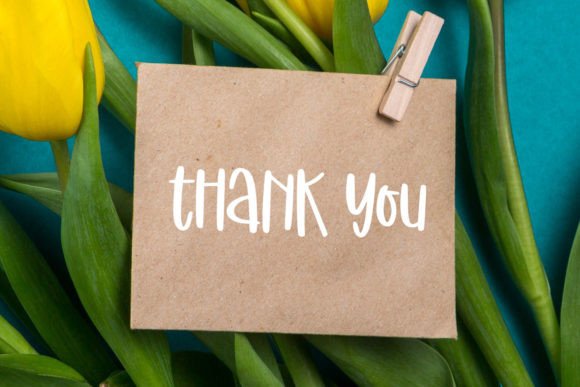
Introduction to Daily Designer Font Font
Fonts play a crucial role in design, and the Daily Designer Font font is a typeface that brings both character and versatility to any project. Whether you’re working on a branding project, a website, or a print design, the Daily Designer Font font offers a unique style that can elevate your work.
| 📌 Font Name | Daily Designer Font |
| 👤 Author | Abodaniel |
DAILY DESIGNER – cute and crafty font- DAILY DESIGNER is playful font.
It is great for branding, quotes, logos, t-shirt designs, tote bag designs, cards, banners, social media, and more .
Key Features of Daily Designer Font Font
Why Choose Daily Designer Font Font?
The Daily Designer Font font is more than just a typeface – it’s a design tool that helps you communicate your message with style and clarity. Its unique character set and versatile design make it suitable for a wide range of applications, from elegant invitations to bold headlines.
With its carefully crafted letterforms and balanced proportions, the Daily Designer Font font ensures readability and visual appeal across all mediums.
What makes Daily Designer Font font special?
The Daily Designer Font font stands out with its unique design, exceptional readability, and versatility across various design applications.